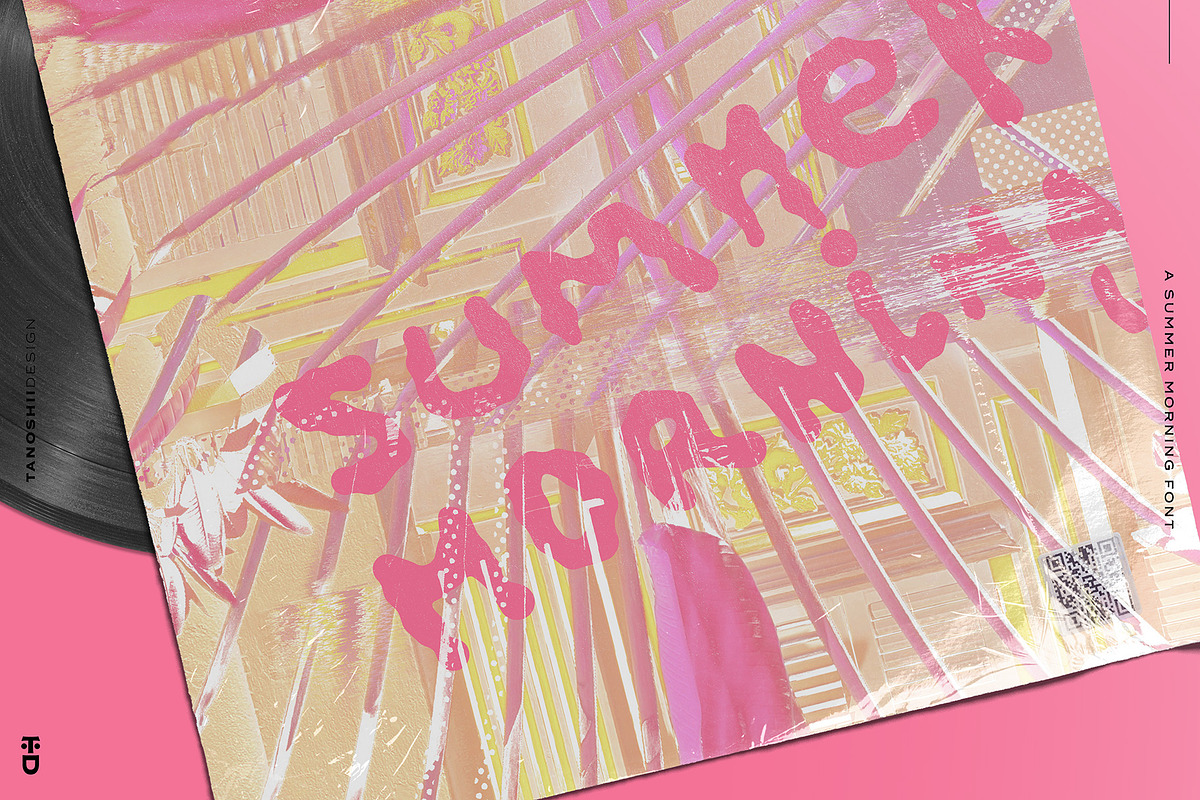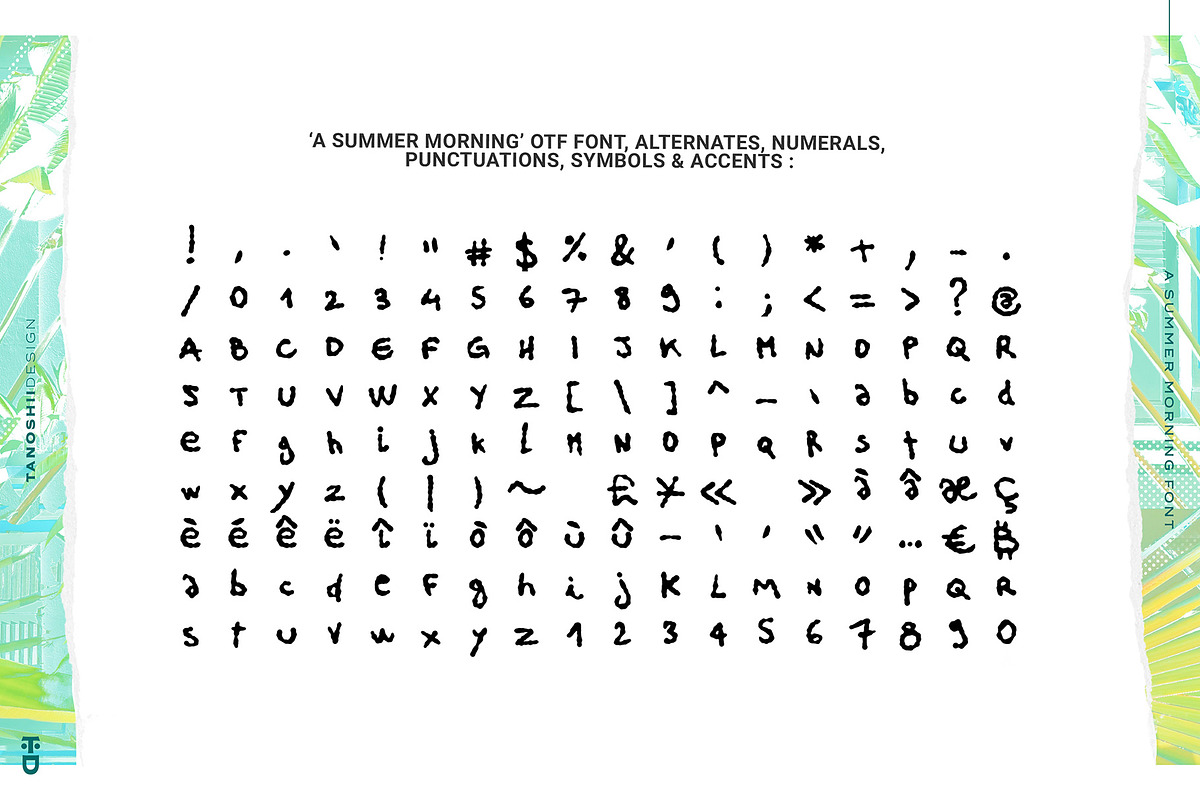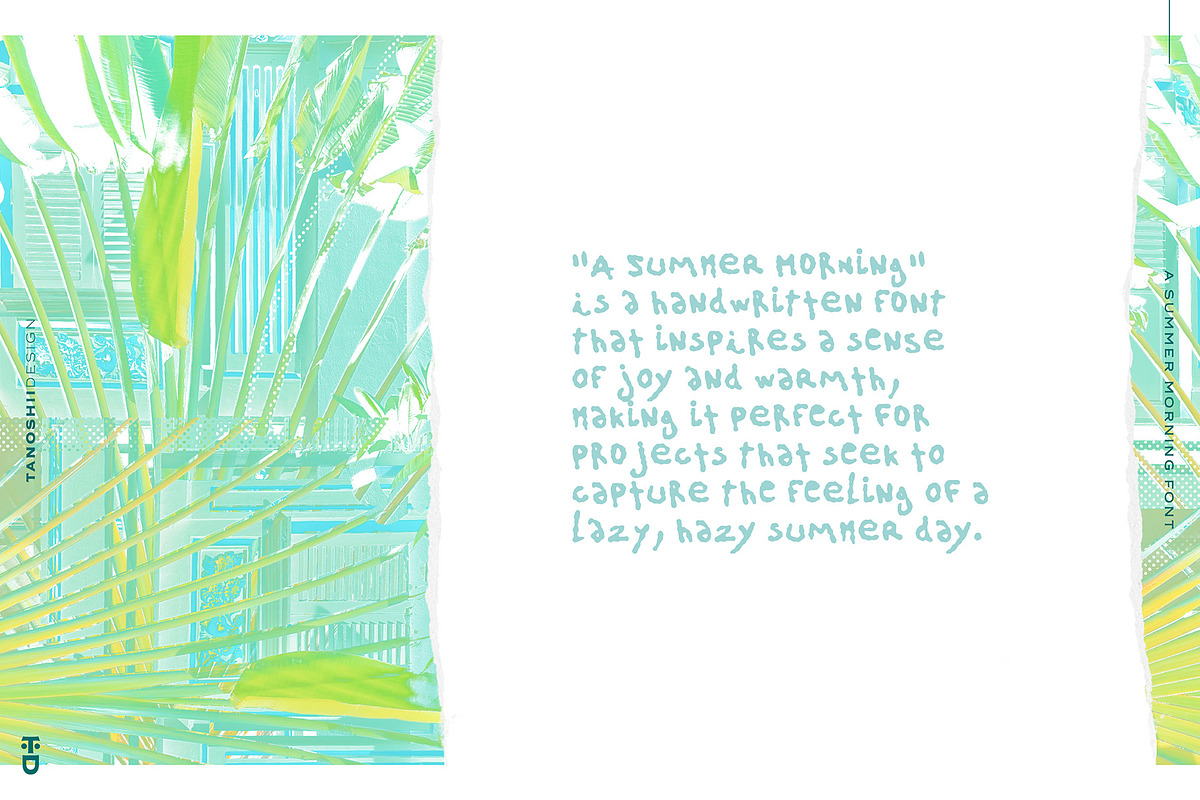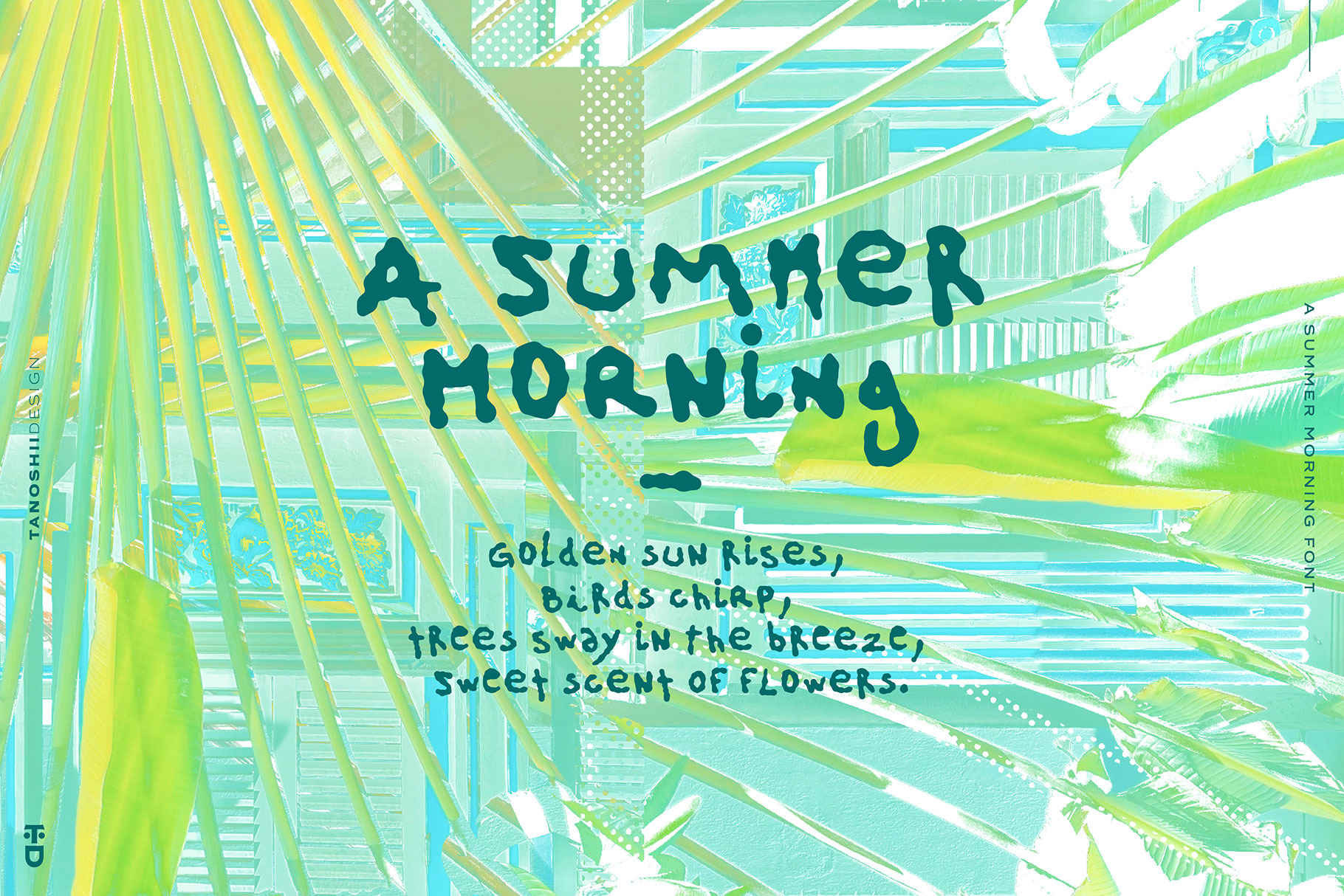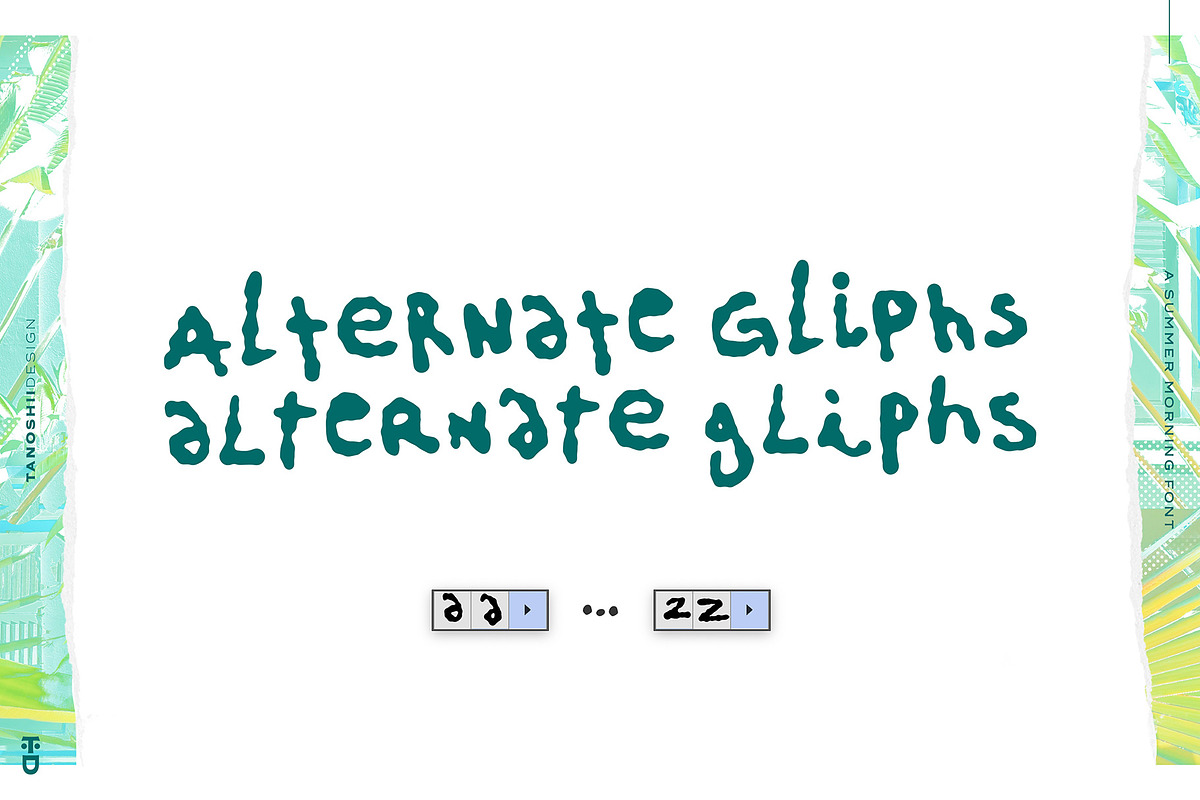
A Summer Morning - Handwritten Font
"A Summer Morning"
is a handwritten font that inspires a sense
of joy and warmth, making it perfect for projects that seek to capture the feeling of a lazy, hazy summer day.